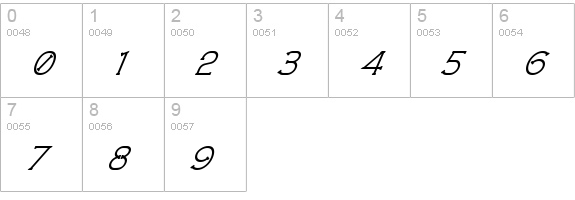
Introducing the mesmerizing Technically Insane Superitalic font - a true testament to the boundless creativity and the bold pursuit of innovation. This one-of-a-kind typeface pushes the boundaries of conventional design, offering an exhilarating visual experience that will leave you spellbound. Technically Insane Superitalic font exudes an eccentric energy that effortlessly blends the realms of technology and insanity. Its distinctive letterforms boast an unconventional slant and a captivatingly twisted aesthetic, capturing the essence of a mind on the brink of genius. Every character is meticulously crafted to evoke a sense of dynamism and motion, as if they are constantly in flux, dancing on the edge of rationality. With its sleek and futuristic appeal, Technically Insane Superitalic font is perfect for projects that demand a touch of unconventional brilliance. Whether you're designing a cutting-edge logo, creating eye-catching headlines, or crafting striking posters, this font will elevate your work to a whole new level of innovation and visual impact. And the best part? Technically Insane Superitalic font is available for free! Yes, you read that right - this extraordinary font can be freely downloaded at FontsMarket.com, allowing you to unleash your creativity without any constraints. In a world where uniqueness is cherished, this font is a gift that allows you to stand out and make your mark. So don't wait any longer - embrace the madness and set your design projects apart with Technically Insane Superitalic font. Download it now from FontsMarket.com and embark on a journey of unlimited possibilities, where insanity and brilliance converge in a harmonious symphony of typographic excellence.